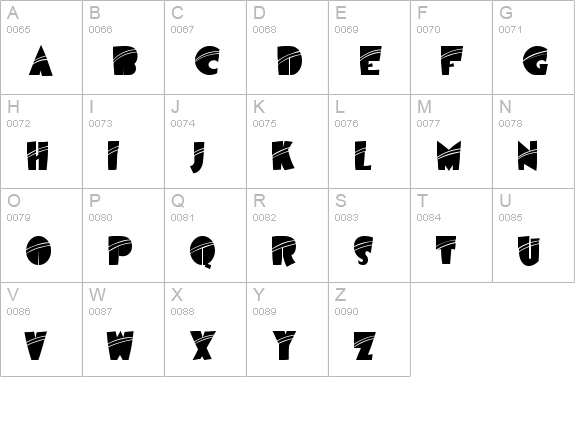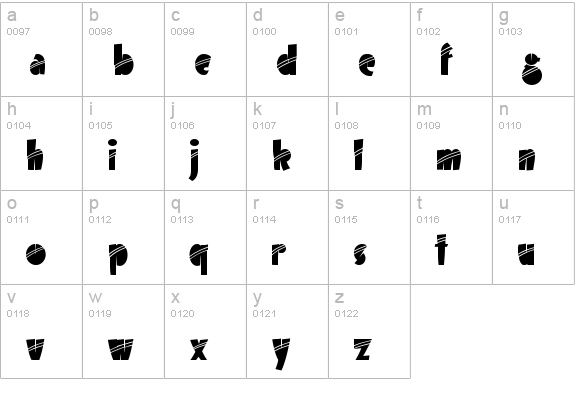
Airmole Stripe Font Details
Airmole Stripe font is a modern and stylish typeface that exudes sophistication and elegance. With its sleek lines and unique design, this font is perfect for a wide range of projects, from branding to advertising to social media graphics. The Airmole Stripe font is versatile and eye-catching, making it a great choice for both digital and print applications. Its bold and striking appearance commands attention and leaves a lasting impression on viewers. Best of all, Airmole Stripe font is available for free download at FontsMarket.com. This means you can easily access this premium font without any cost, making it a valuable addition to your design toolkit. Whether you're a professional designer or a hobbyist, Airmole Stripe font is sure to elevate your projects and help you stand out from the crowd.